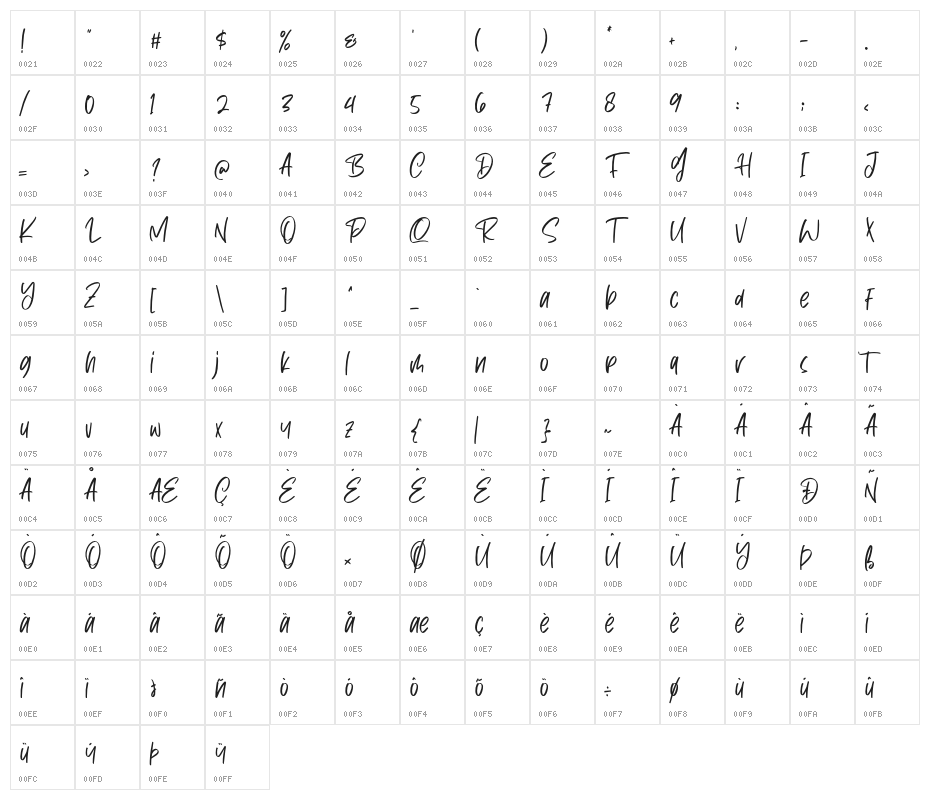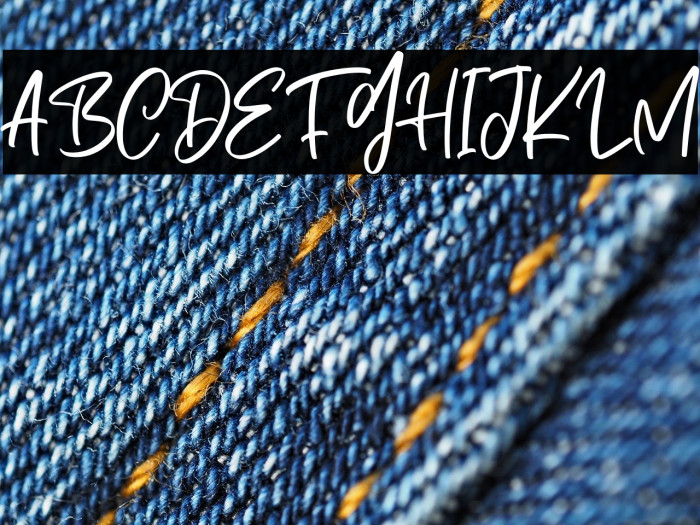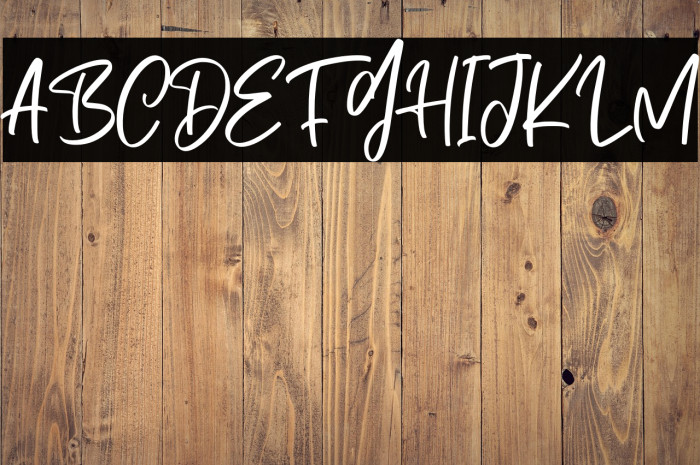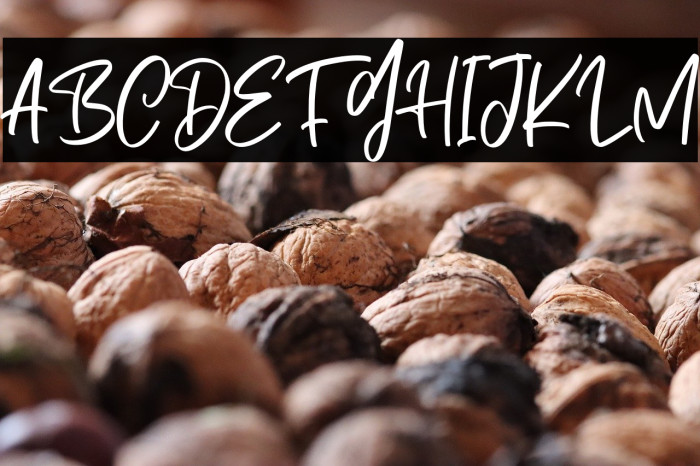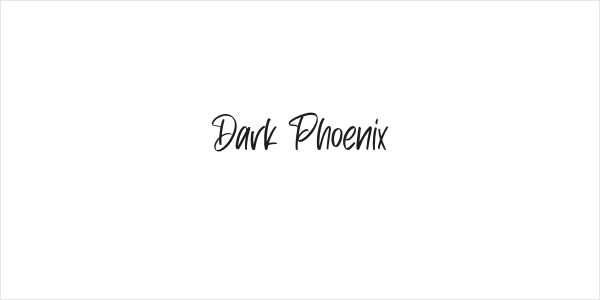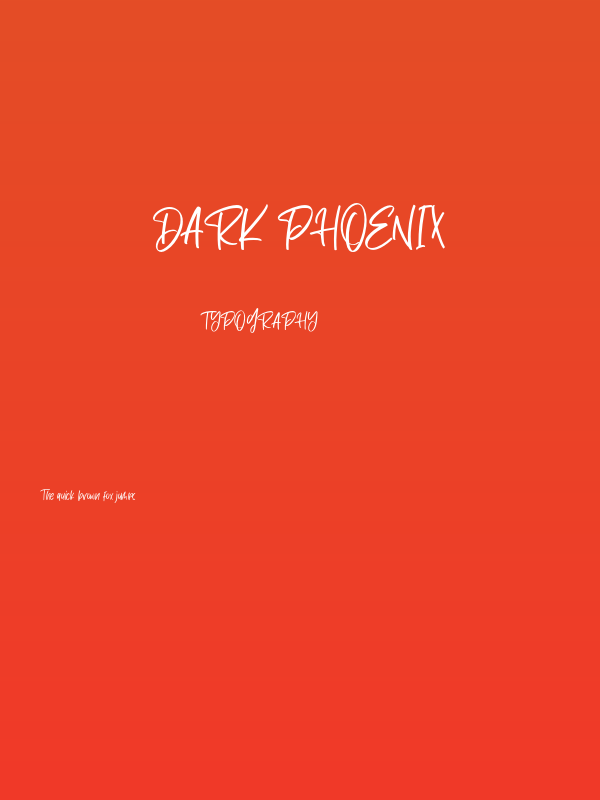
Dark Phoenix Font
Dark Phoenix Description
This font features a lively and energetic handwritten style, characterized by its fluid and dynamic strokes. The letters are slightly slanted, giving a sense of motion and spontaneity. The uppercase and lowercase letters maintain a consistent style, with a playful yet elegant appearance. The numerals and special characters are crafted with the same attention to detail, ensuring a cohesive look across all elements. The font's overall aesthetic is modern and expressive, making it suitable for projects that require a personal touch.
| Proposed Projects | Ideal for branding, invitations, greeting cards, and social media graphics where a personal and dynamic touch is desired. |